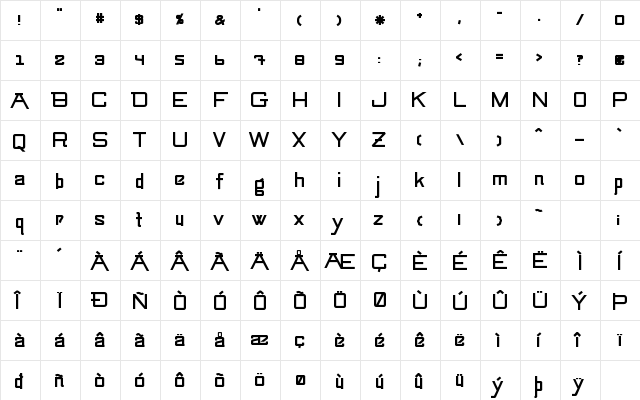
SwingarmYori-Thick Regular
Design Context for SwingarmYori-Thick Typeface
SwingarmYori-Thick has the no-nonsense character of military stencilling and tactical signage, projecting authority and directness.
A strong choice for security brands, outdoor gear, and high-stakes visual communication.
Pro Tip: Try SwingarmYori-Thick in all-caps for the most authentic military signage feel. It pairs well with stark, minimal layouts and muted colour palettes.